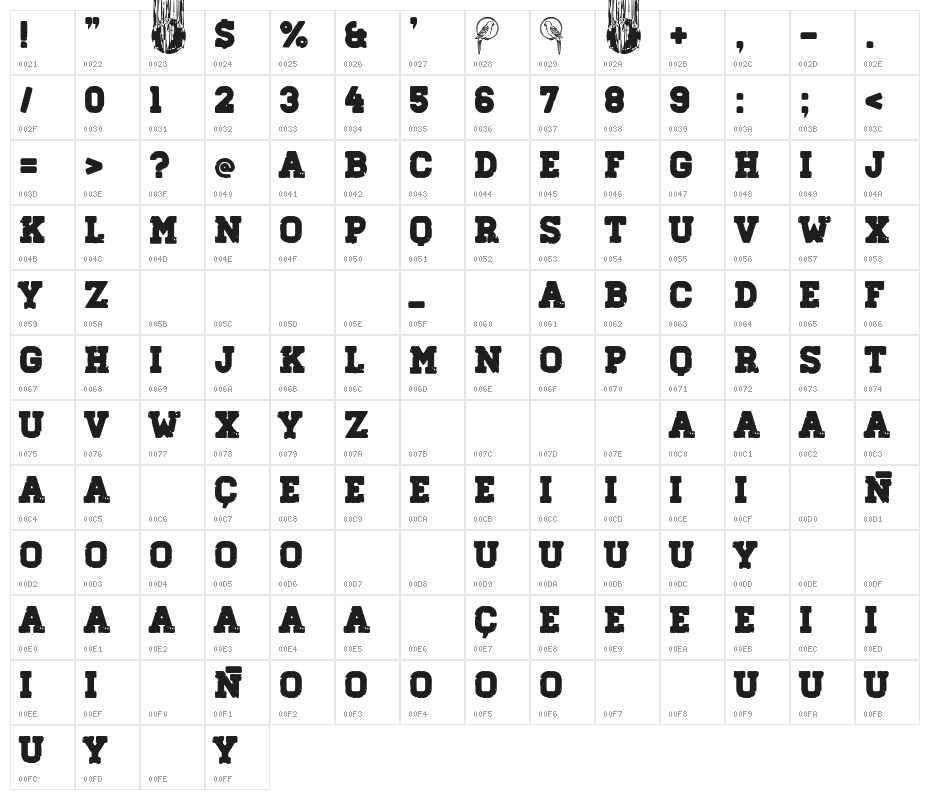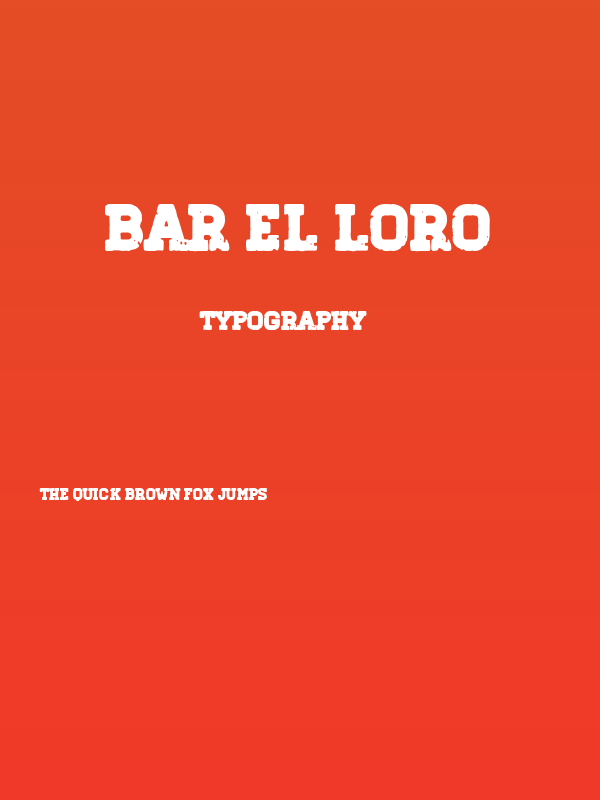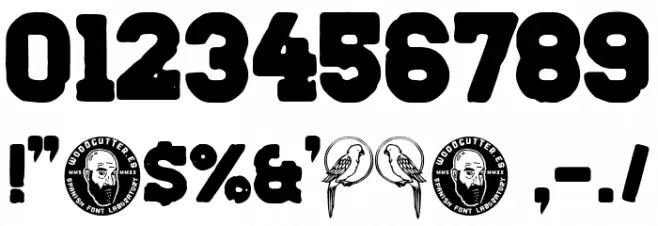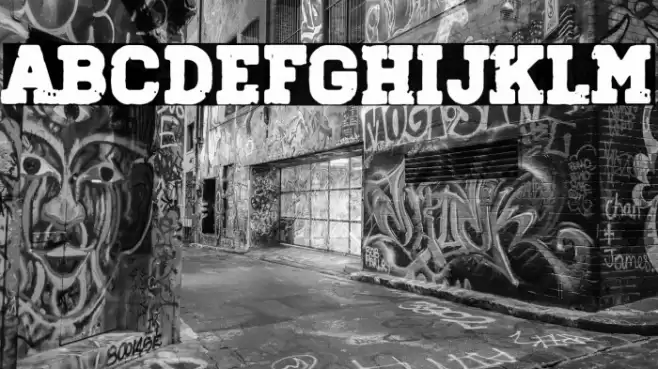
Bar el Loro Font
Bar el Loro Description
This font features a bold, rugged style with a distressed texture that gives it a vintage, worn appearance. The uppercase letters are prominent and sturdy, while the numbers maintain a consistent weight and style. The special characters are designed to match the boldness of the alphabet, making them suitable for attention-grabbing designs. The font's overall style is reminiscent of old western or industrial themes, with a strong presence that commands attention. Its unique texture adds character and depth, making it ideal for projects that require a bold and impactful visual statement.
| Overall Style | Vintage |
| Proposed Projects | Ideal for posters, logos, branding, and any design requiring a strong, vintage aesthetic. |